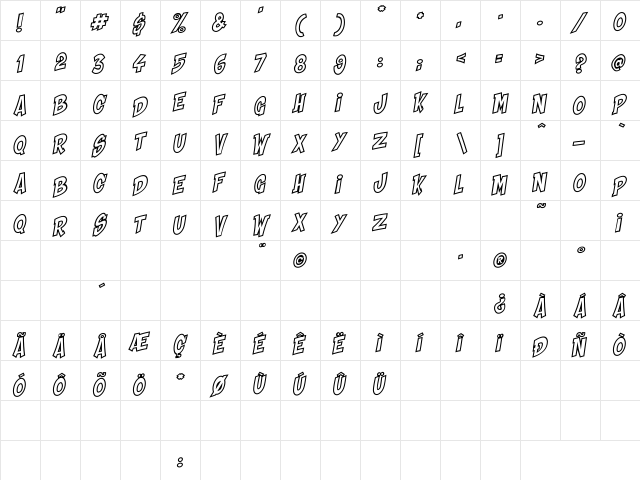
Shaka Pow Hollow Regular
Design Context for Shaka Pow Hollow Typeface
Shaka Pow Hollow is a composed and adaptable typeface that performs quietly and consistently across a wide range of design contexts.